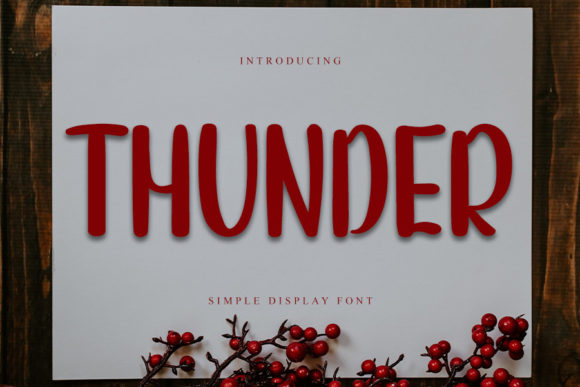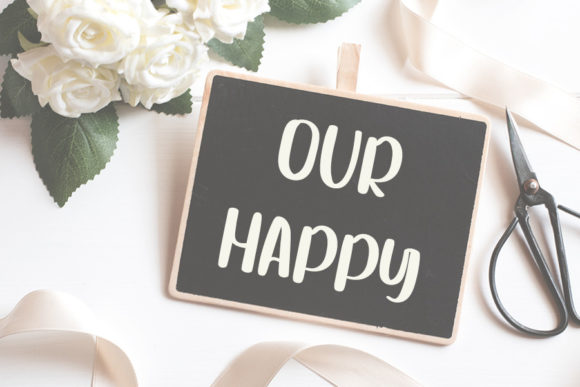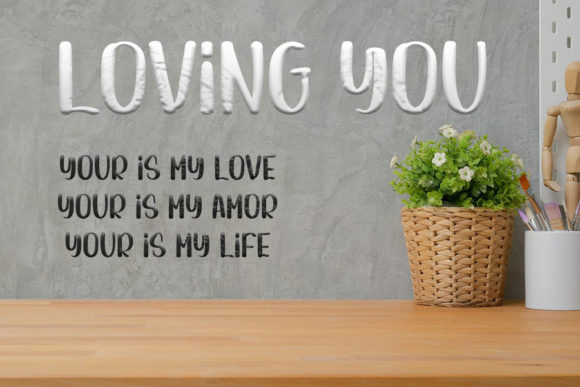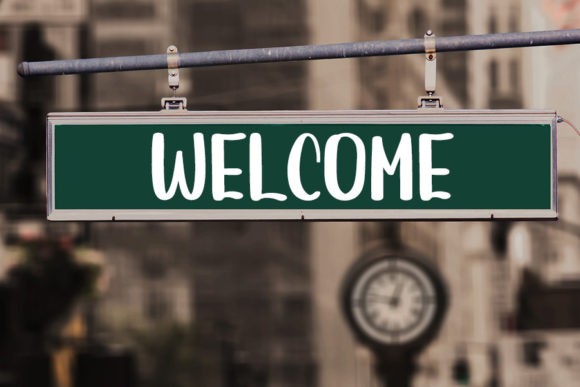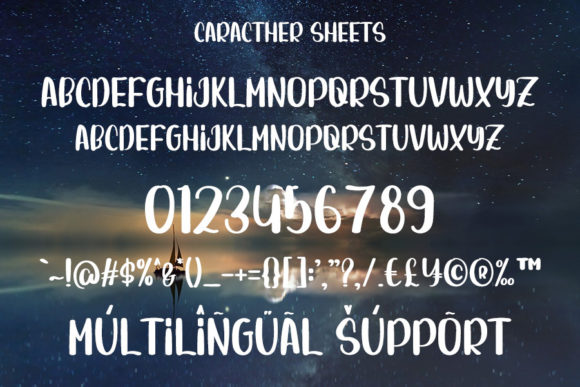
Thunder Font
About Thunder Font
Thunder is a stylish handwritten font with a contemporary atmosphere and impeccable form, inspired by a timeless classic calligraphy. Balanced and varied, this font was designed to enhance the beauty of your projects.